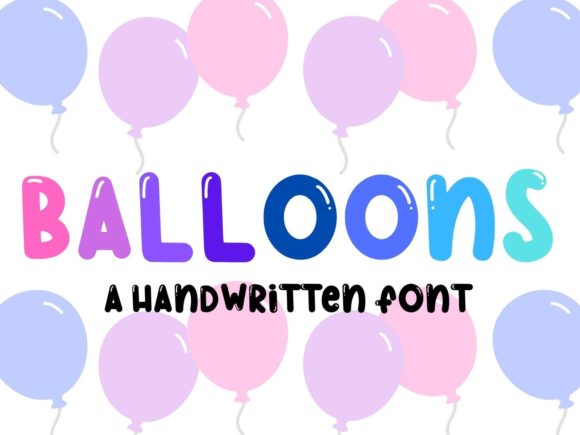
Journey into a whimsical realm where imagination takes flight with Balloons Font, a playful display font crafted by Kristen Rheaume. Each letter, a buoyant balloon filled with cheer, invites you to dance through your designs, spreading joy like confetti on a summer breeze.
Balloons Font is a symphony of delight, capturing the essence of childhood wonder and the magic of celebrations. Its charming curves and cheerful strokes evoke laughter and lightheartedness, beckoning you to create designs that spark joy in every heart. Whether for invitations, party posters, or playful branding, Balloons Font is your passport to a world of enchantment.
With Balloons Font, your creations will soar above the ordinary, captivating audiences with its infectious charm. Picture whimsical birthday invitations that bring smiles to faces, vibrant carnival posters that ignite excitement, and enchanting children's book illustrations that transport readers to realms of pure imagination.
Balloons Font isn't just a font; it's an experience. It's a chance to infuse your designs with a sense of wonder, to evoke memories of laughter-filled playgrounds and sun-drenched picnics. It's a font that speaks to the child within us all, reminding us of the simple joys of life. Embrace the magic of Balloons Font and watch your designs take flight, spreading happiness wherever they go.